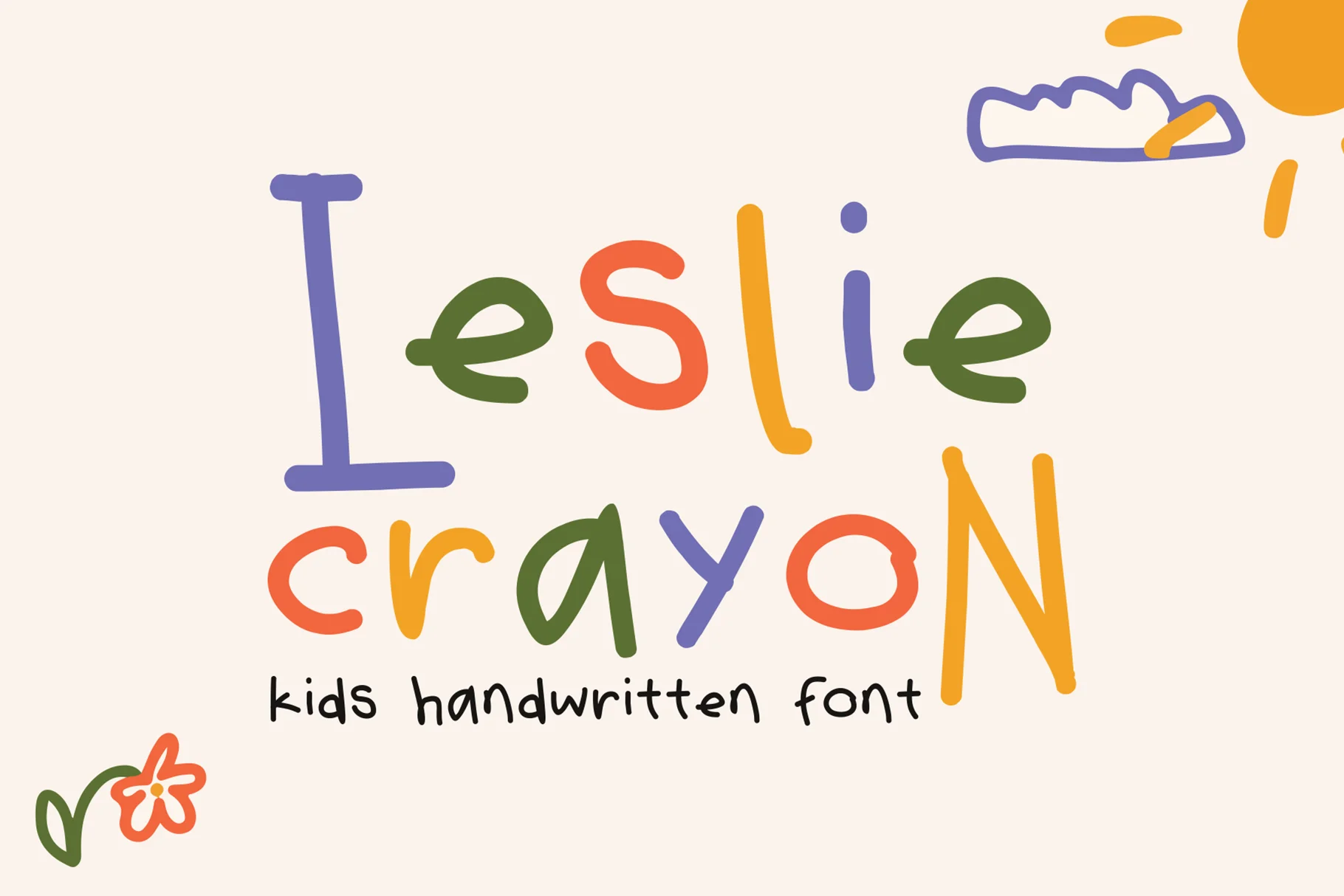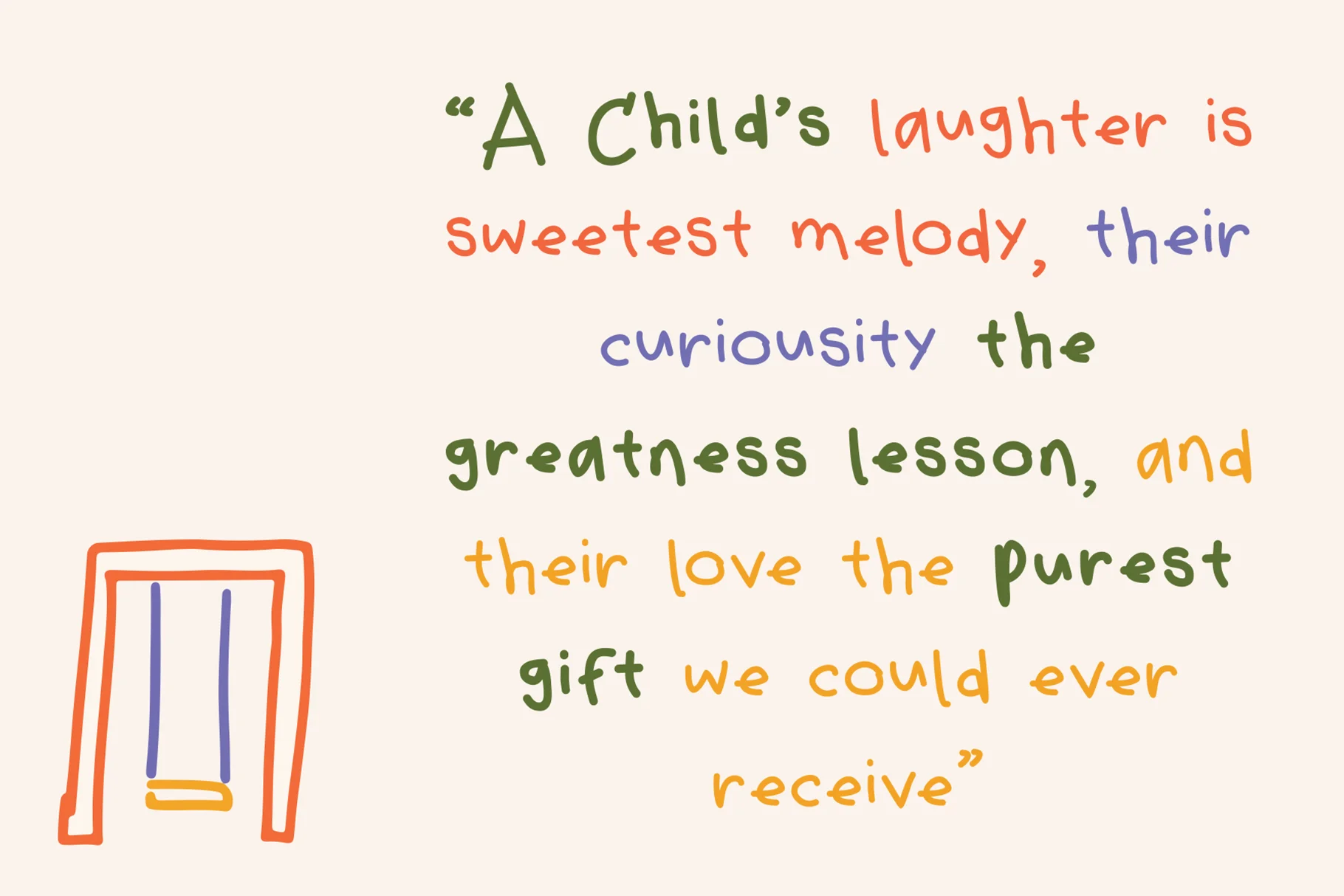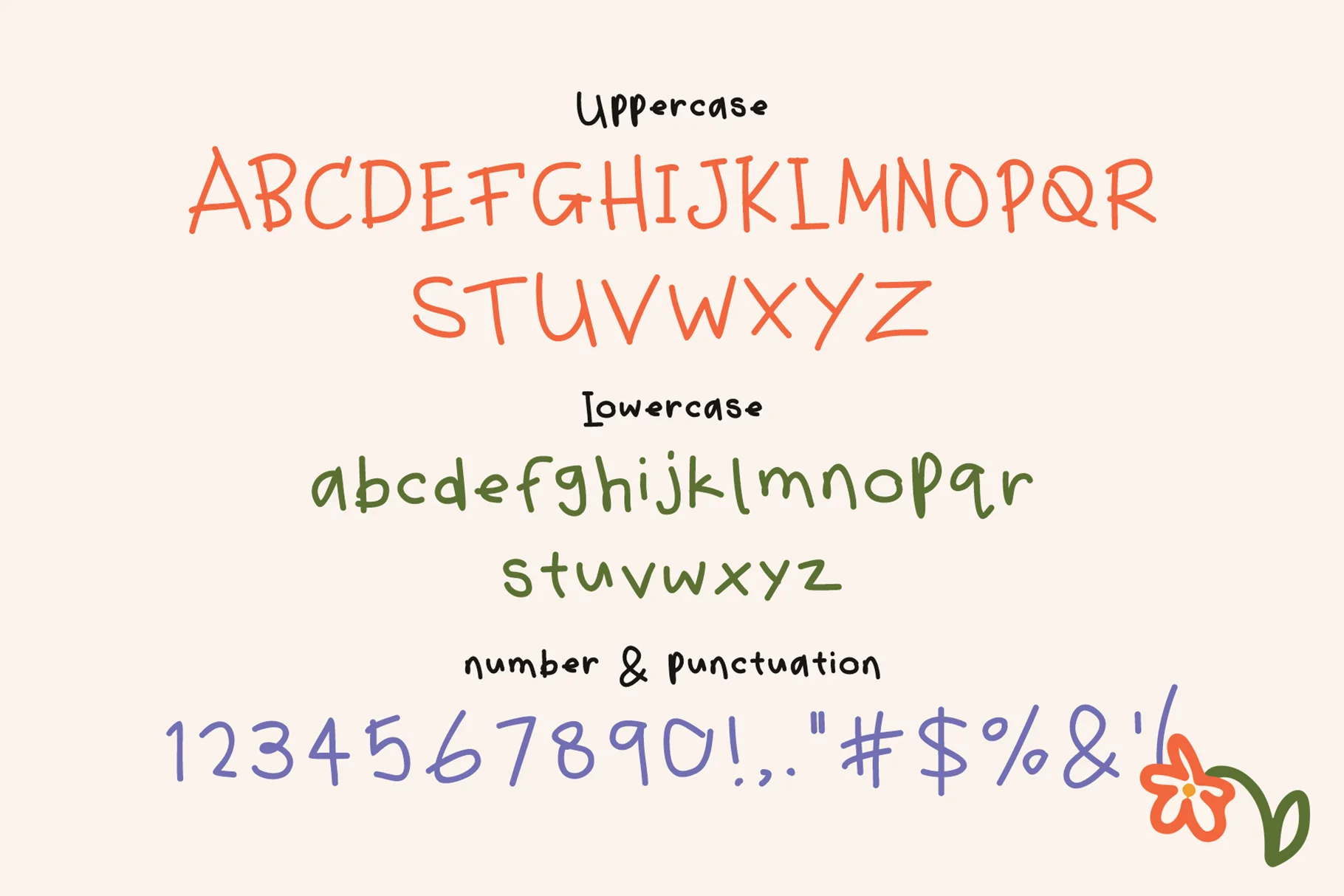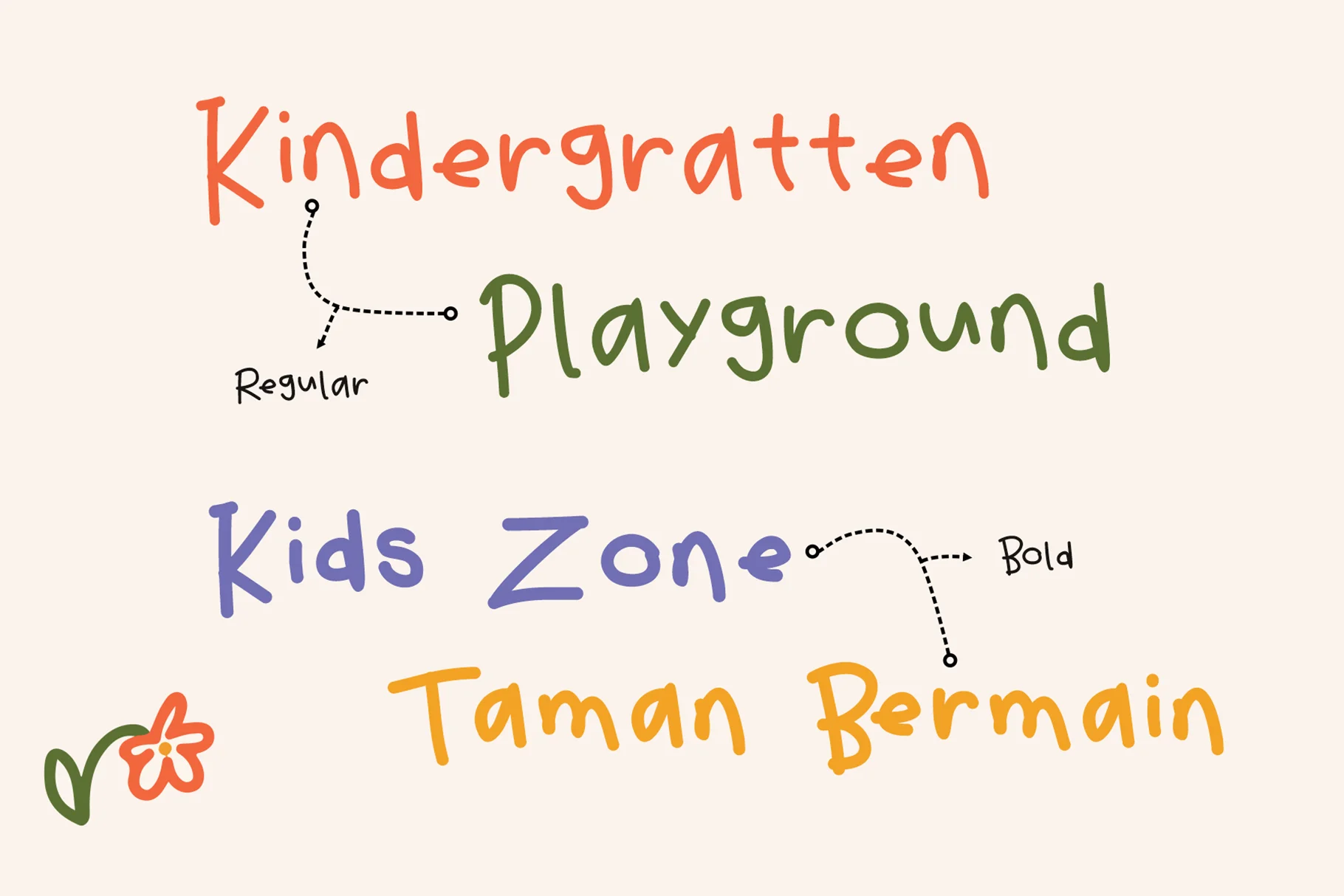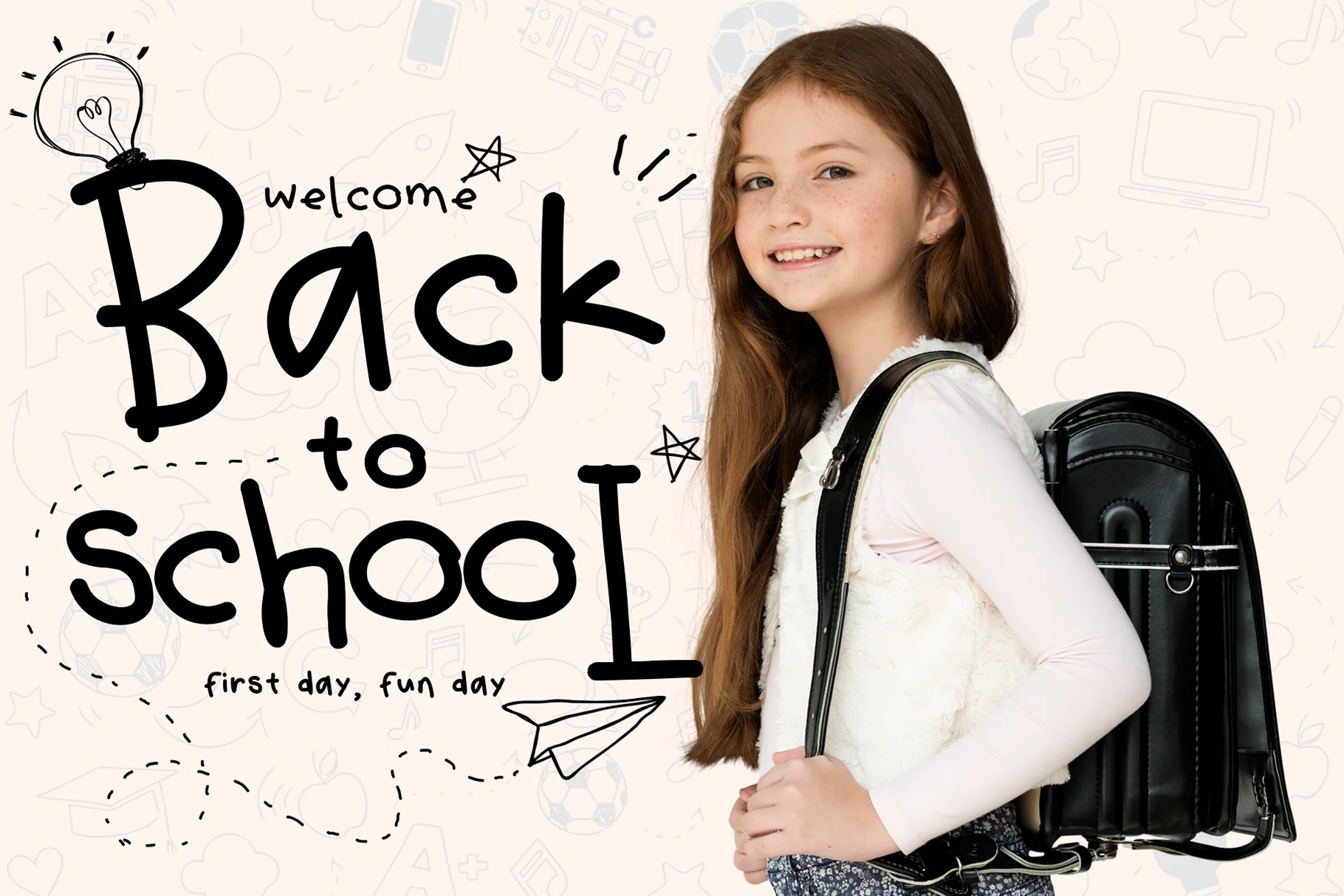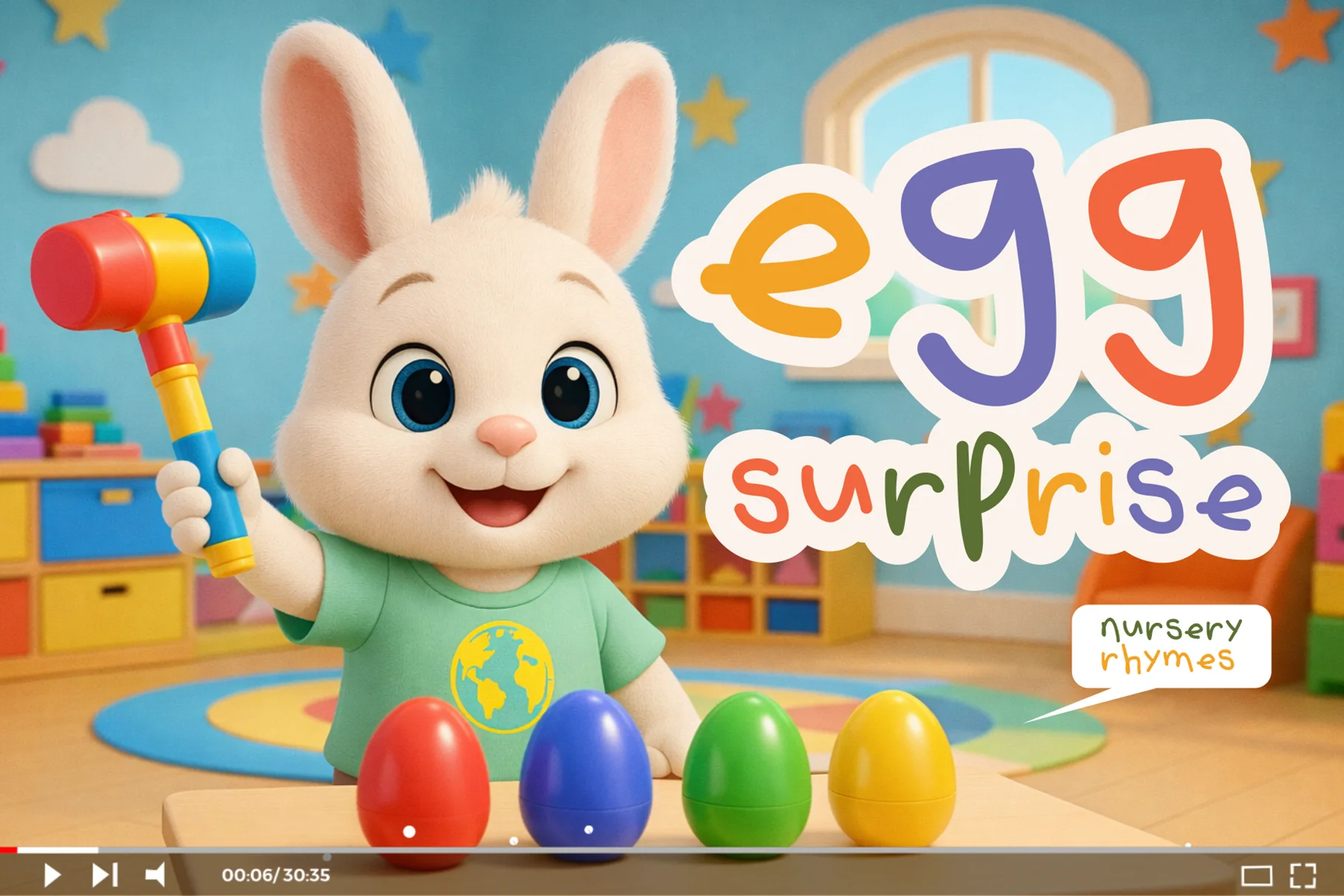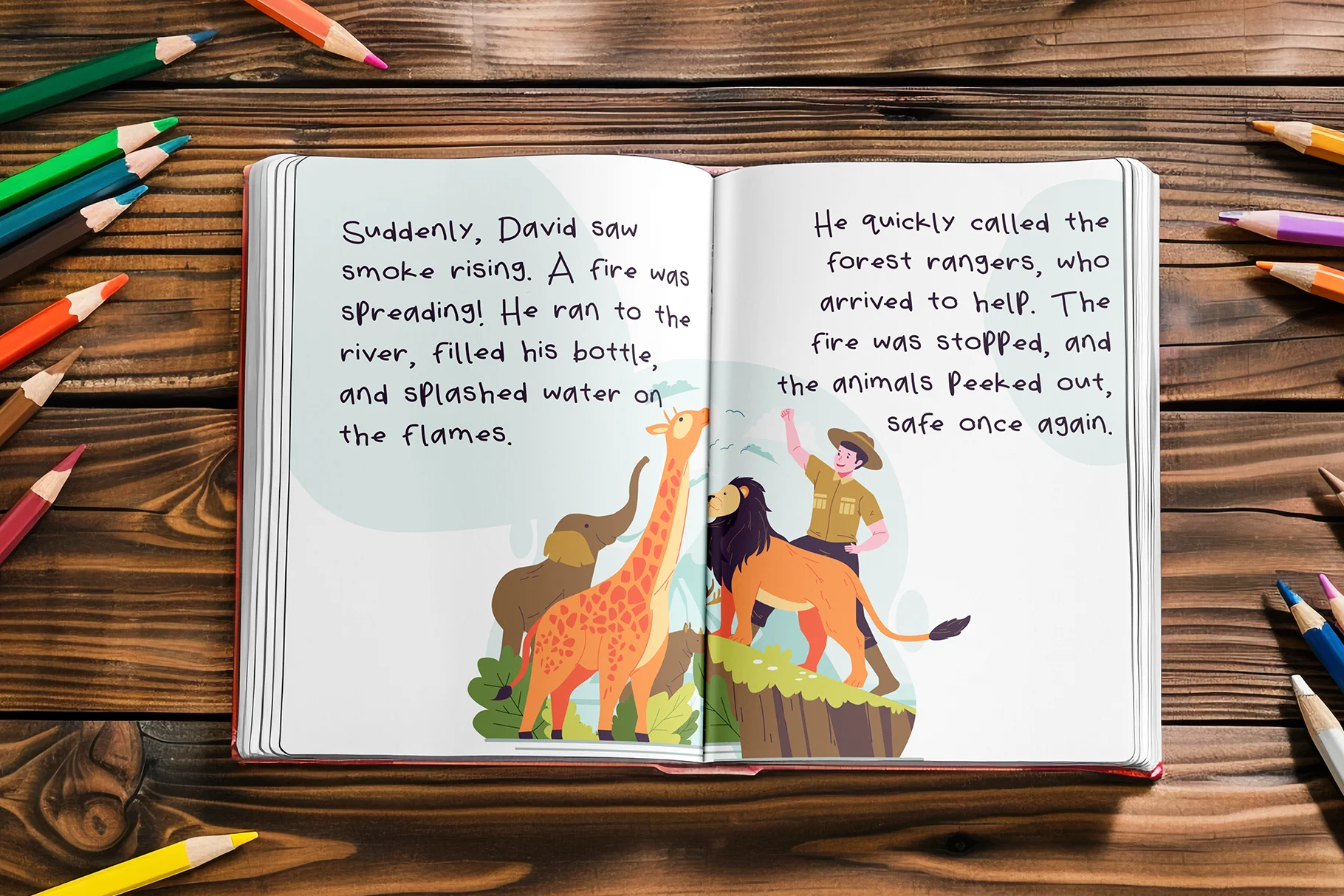
About Leslie Crayon
Leslie Crayon is a natural kids handwritten font with a warm, playful character inspired by the spontaneous feel of hand-drawn lettering. Its casual forms bring an approachable and youthful quality to typography, making it well suited to creative projects that need a personal, friendly, and imaginative voice.
With its handwritten appearance, Leslie Crayon works naturally for children’s designs, classroom materials, story titles, activity sheets, packaging, invitations, and playful branding. The organic character helps layouts feel less formal and more expressive, while the familiar handwritten quality keeps the lettering easy to integrate into a wide range of creative compositions.
Leslie Crayon can also be used beyond kids-focused projects wherever a relaxed handwritten touch is needed. It is especially effective for short headlines, labels, captions, names, and decorative phrases that benefit from a personal, crafted feel.
Natural Handwritten Character
Leslie Crayon captures the casual rhythm of handwritten lettering rather than aiming for perfectly uniform shapes. Its natural character gives typography a lively, human quality that works particularly well in designs centered around creativity, learning, childhood, and everyday expression.
As a display-oriented handwritten style, the font is most effective when used for prominent words and short phrases. It can create a friendly focal point in a composition while pairing naturally with simpler typefaces used for supporting information and longer content.
Uppercase & Lowercase
Leslie Crayon includes both uppercase and lowercase characters, providing flexibility for titles, names, phrases, captions, and mixed-case lettering. The combination allows designers to create more natural handwritten compositions while maintaining variation between prominent headings and supporting text.
Numbers & Punctuation
The font also includes numbers and punctuation, making it suitable for practical design elements such as dates, prices, labels, classroom activities, event details, and short written messages. These additional characters help extend the font beyond decorative lettering into complete graphic compositions.
Applications for Playful Design
- Kids design and educational materials
- Children’s books and story graphics
- Packaging and product labels
- Invitations and party stationery
- Playful branding and social media graphics
- Natural kids handwritten style
- Playful and approachable personality
- Casual hand-drawn character
- Uppercase lettering
- Lowercase lettering
- Numbers included
- Punctuation included
- Suitable for display typography
- Useful for children’s and educational designs
- Organic handwritten visual quality
Why Designers Love Leslie Crayon
Leslie Crayon adds a personal touch to designs that might otherwise feel too structured or formal. Its handwritten character can make headlines, names, and short messages feel more approachable, helping establish a warm visual tone without relying on elaborate decorative effects.
The combination of uppercase and lowercase characters also gives designers useful control over typographic hierarchy. Larger handwritten titles can become the main visual focus, while lowercase phrases and supporting details can create a more relaxed flow throughout the composition.
A Friendly Handwritten Touch
Leslie Crayon brings the natural energy of children’s handwriting into a versatile display font. Its playful and casual personality makes it a natural fit for kids design, educational artwork, children’s publishing, packaging, invitations, and creative branding.
Use Leslie Crayon when a project calls for friendly handwritten typography with an imaginative, youthful feel. Its organic character can add warmth and personality to everything from classroom graphics and story titles to playful packaging and social media artwork.